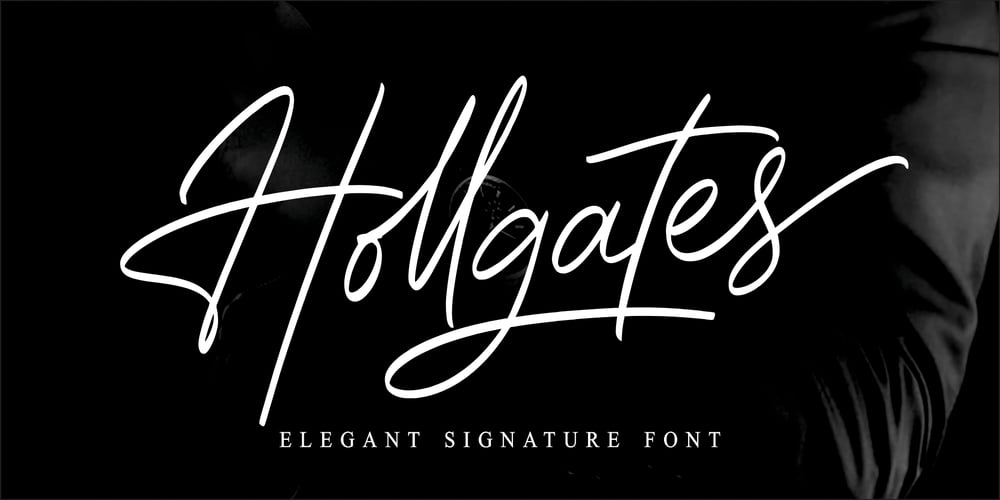
Hollgates
Hollgates font
Hollgates Font Family was designed by SU KASIH and published by Mozatype. Hollgates contains 2 styles and family package options. Proudly present our new font.It is named Hollgates – Elegant Signature Font.Hollgates is script handwritten style with a natural charm.This font which is a modern signature and unique style handmade comes with very beautiful character changes.To keep the maximum real hand-lettered effect, there were created 240 ligatures (you can see them among the presentation pictures). When creating the font, we should take into consideration that each letter should be able to be connected with other letters. For example, the letter “a” should be well connected as well as with “l” and “n” and with any other letters. This limits us: we have to start letter from exact one point and finish at exact second point. So here come ligatures.Hollgates font contains following ligatures:ab ad af ah ai ak al am an ao ap as at az az bh bl bk bt bx br cb cl ch ck cc cr cs ct co cx czdd db dh dl dk dt dr ds dx dz eb ef eh ek el et ett er em en es ex ez ff fh fl fk fi fo fs ft fr fz fxgg gh gr gb gf gl gk gt go gs gz hf ho hs ht hz ib if ih ik il it itt ii in im ip is ir iz ixjo kl kk kh ko ks kr kt kx kz lo li ls lu lr lx ly lz mm mf mi mh ml mk mo mp ms mt mz mxnb ni nf nh nl nk no ns nr np nt nx nz ob of oh oi oj ok ol om on op os ot ott ou ox ozph ppl pp ps pt pu pi pr po px pz rs rr st sh sl sk sb si sm sn so sp su sx sy szoll all ell ill ull th tl tk ti ts tr to tu tx tz ty ub ul uh uk ul ut uttun um up us ux uz vh vl wh wl wo zz ee ll ff oo rr ss tt dd ffIt’s the perfect fit for all luxury projects, such as wedding invitation, signatures, luxury logos, printed quotes, grettings cards, social media headers, product packaging and many more!It includes a full set of uppercase and lowercase letters, multilingual symbols, numerals, punctuation and ligatures.It is PUA encoded which means you can access all of the glyphs and swashes with ease!Fall in love with its incredibly versatile style and use it to create spectacular designs!Use this font for any crafting project that requires a personalized look!What’s Included :– Works on PC & Mac– Easy to use ( Installations )– Easy Convert to webfont– Compabilty Windows, Apple, Linux, Cricut, Silhouette and Other cutting machinesThanks for downloading, and I hope you enjoy it!